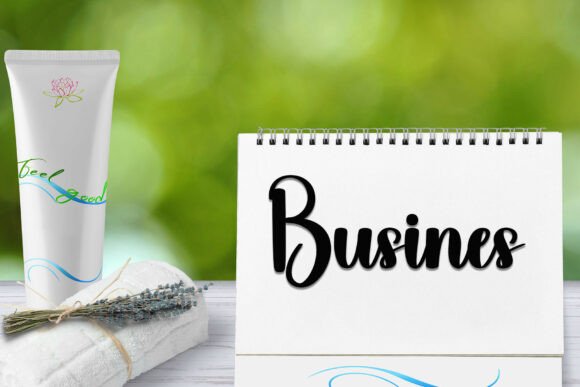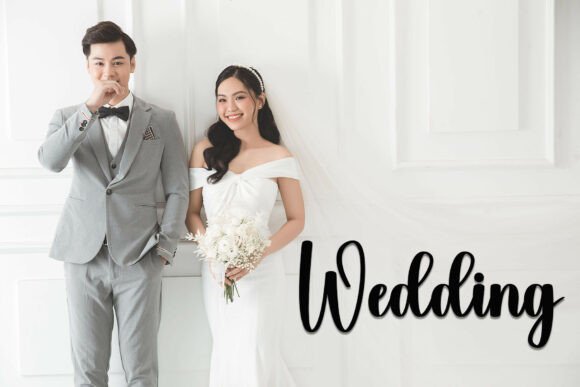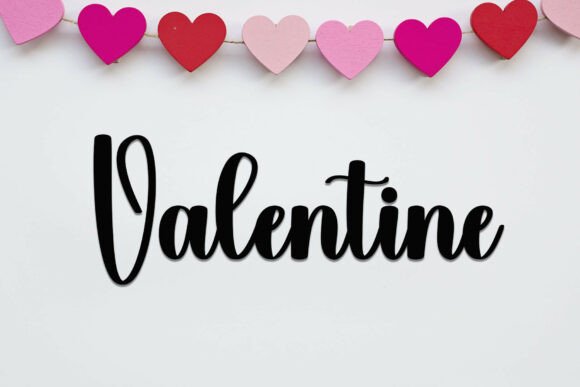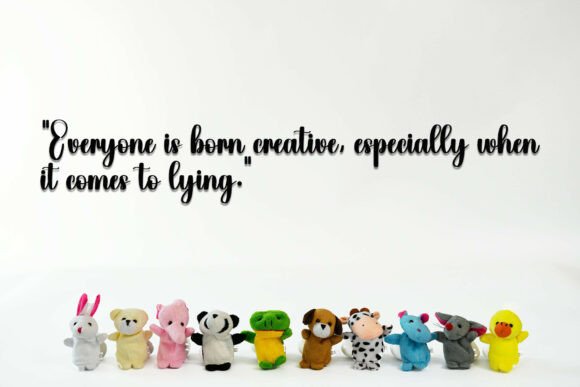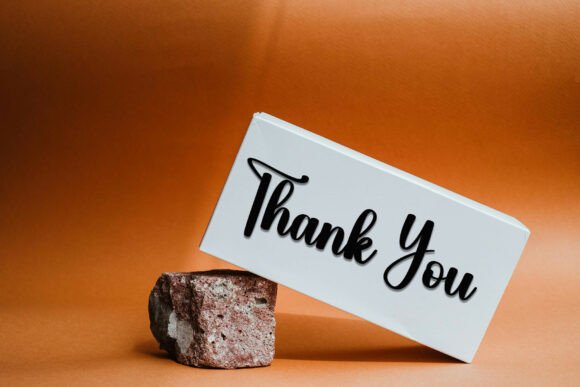
Discover the Joy of Football Font: Elevate Your Designs with a Touch of Whimsy
As designers, we’ve all had those moments when inspiration strikes, and we’re on a mission to create something truly special. Maybe it’s a new logo for a client, or a custom wedding invitation for a dear friend. Whatever the project, there’s something magical about bringing an idea to life, and that’s exactly what the Football Font is all about.
With its sweet and cursive handwritten style, Football Font adds a touch of romance and whimsy to any design. Perfect for branding, marketing, and more, this versatile font is a game-changer for designers looking to elevate their work. Whether you’re a seasoned pro or just starting out, Football Font is a valuable addition to your design toolkit.
Key Features of Football Font
- Font Family: Football Font is a unique, handwritten font designed specifically for sports and action-oriented graphics.
- Size: The font is available in 3 different sizes: Regular (300 DPI), Extra Bold (300 DPI), and Outline (300 DPI).
- Resolution: Designed for high-resolution displays, Football Font looks great at resolutions up to 300 DPI.
- Unique Characteristics: Features a dynamic, energetic feel with bold lines and expressive letterforms, perfect for sports-related projects.
Football Font Review
Overall, I’d say the Football Font is a decent choice for designers looking to add a sporty vibe to their projects. Here are some things that work well: ✨
- Fits well with sports-related themes and branding
- Has a unique, custom feel to it
- Works well in digital and print formats
However, there are a few limitations that are worth noting: ⚠️
- May not be suitable for body text, as it can be a bit difficult to read at smaller font sizes
- Lacks a complete character set (no accented characters, for example)
- Not ideal for use in formal or professional settings
Overall, I’d say the Football Font is a good choice for designers who want to add a bit of personality to their sports-themed projects. Just be sure to use it judiciously and in conjunction with other fonts to avoid overwhelming the viewer.
Football Font is ideal for sports-themed projects, including posters, infographics, and social media graphics. To get the most out of it, use it in combination with bold and italic fonts to create a dynamic visual effect. Some common use cases include:
- Sports team logos and branding
- Event promotions and advertising
- Sports-themed social media graphics
Alternatives to “Football Font” for Designers
Comic Sans
Comic Sans is a sans-serif font known for its playful and casual feel. It’s often used in informal settings, such as children’s books, advertisements, and social media posts. Unlike Football Font, Comic Sans is more versatile and can be used in a variety of contexts, but it’s not as bold or athletic in appearance.
Impact
Impact is a sans-serif font designed to be bold and eye-catching. It’s often used in headings, titles, and other areas where a strong visual statement is needed. Impact is similar to Football Font in its boldness, but it lacks the athletic feel and is more suitable for formal or dramatic contexts.
American Typewriter
American Typewriter is a serif font inspired by the classic typewriters of the early 20th century. It’s often used in retro-themed designs, magazines, and newspapers. American Typewriter is more elegant and sophisticated than Football Font, but it may not convey the same level of energy or athleticism.
Rockwell is a serif font designed to be strong and stable. It’s often used in corporate designs, brochures, and other materials where a sense of reliability is needed. Rockwell is more formal and conservative than Football Font, but it can be used in sports-related contexts where a more professional tone is desired.